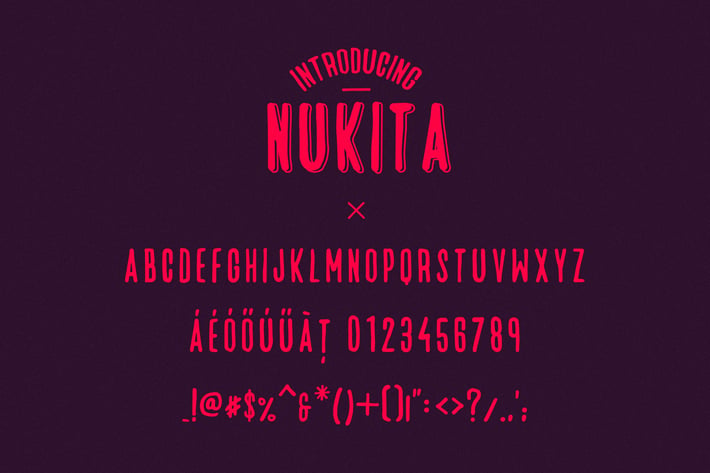
Nukita - Handmade Font
Nukita is a curvy, condensed humanist sans-serif font made of thick, wobbly, irregular lines which grant it a hand written character and it's suitable for display. This font is in all caps and is available in two styles.
2 Different Style:
- NUKITA - Hand
- NUKITA - SHADOW